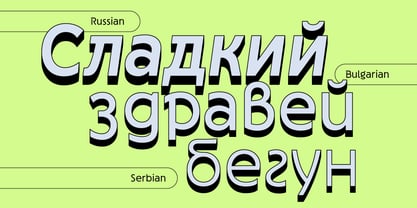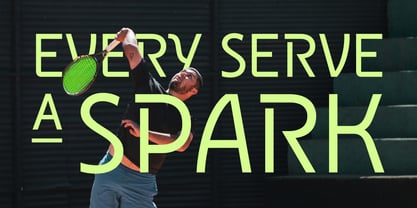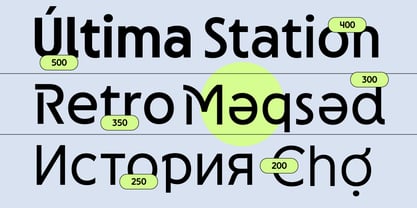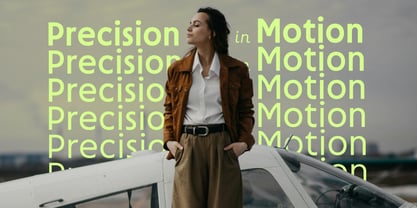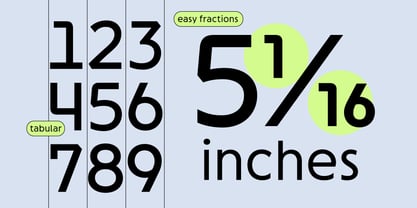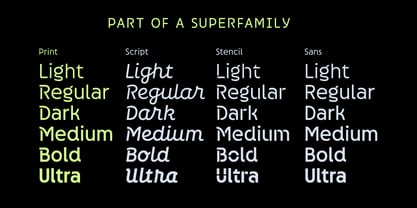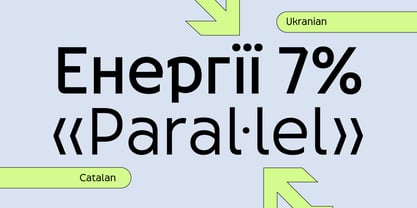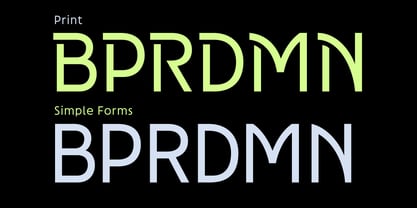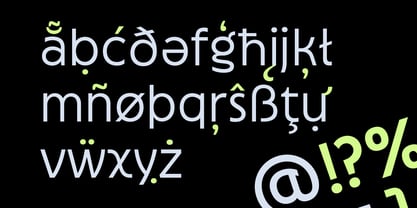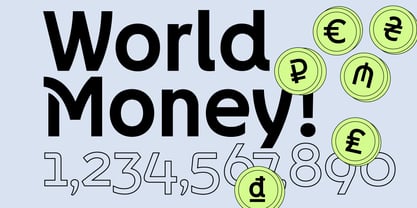
Neopol Print
by Pedroglifos
The Neopol Print Font Family was designed by Pedro Medina-Leandry and published by Pedroglifos. Neopol Print contains 12 styles and family package options. More about this family
Like a great city inhabited by diverse voices, Neopol superfamily comprises three styles that reflect distinct aspects of metropolitan life. Each style is interwoven with the others through subtle influences such as brushstrokes and stencil-like character bridges. Its broad expressive range spans from retro-modern and industrial to artisanal. Furthermore, as a cosmopolitan font, it boasts extended language support for both Latin and Cyrillic scripts. While each of the three styles stands out on its own, the practical beauty of this superfamily lies in their unity and interdependent relationship. The Cyrillic expansion was possible thanks to Tural Alisoy's collaboration (TAFT Foundry).